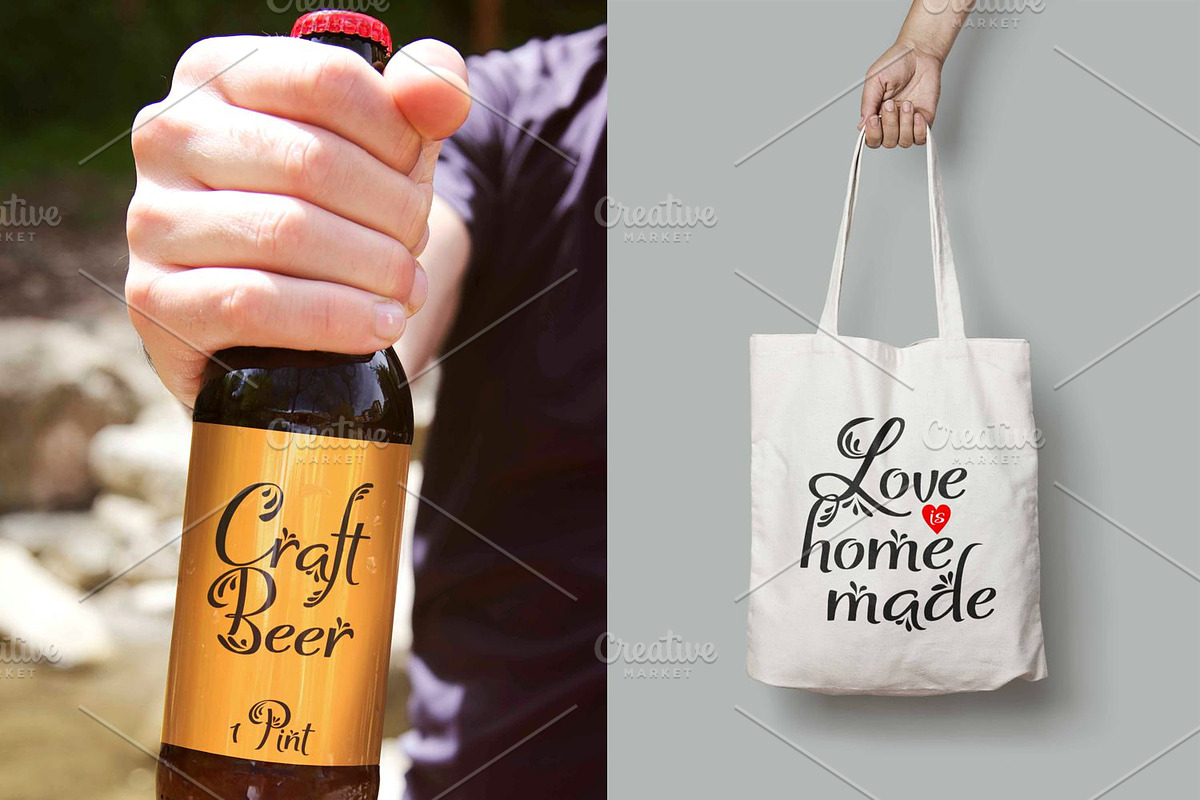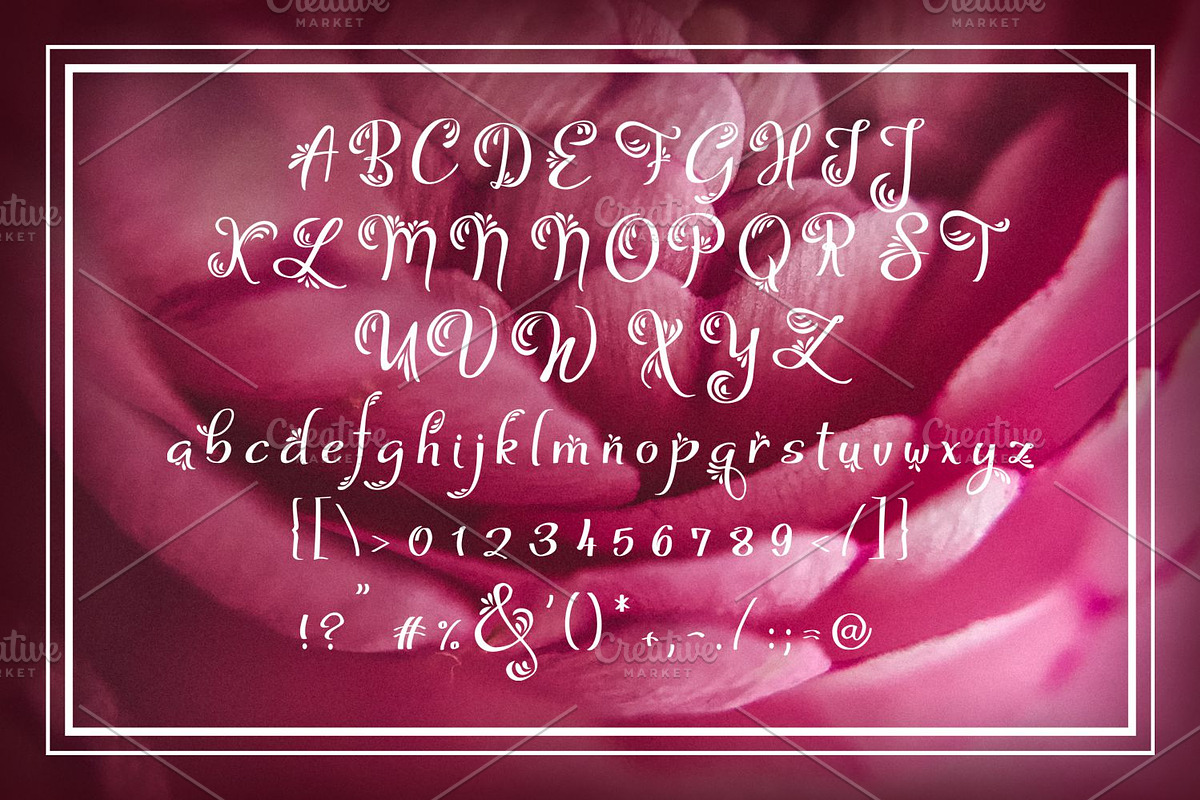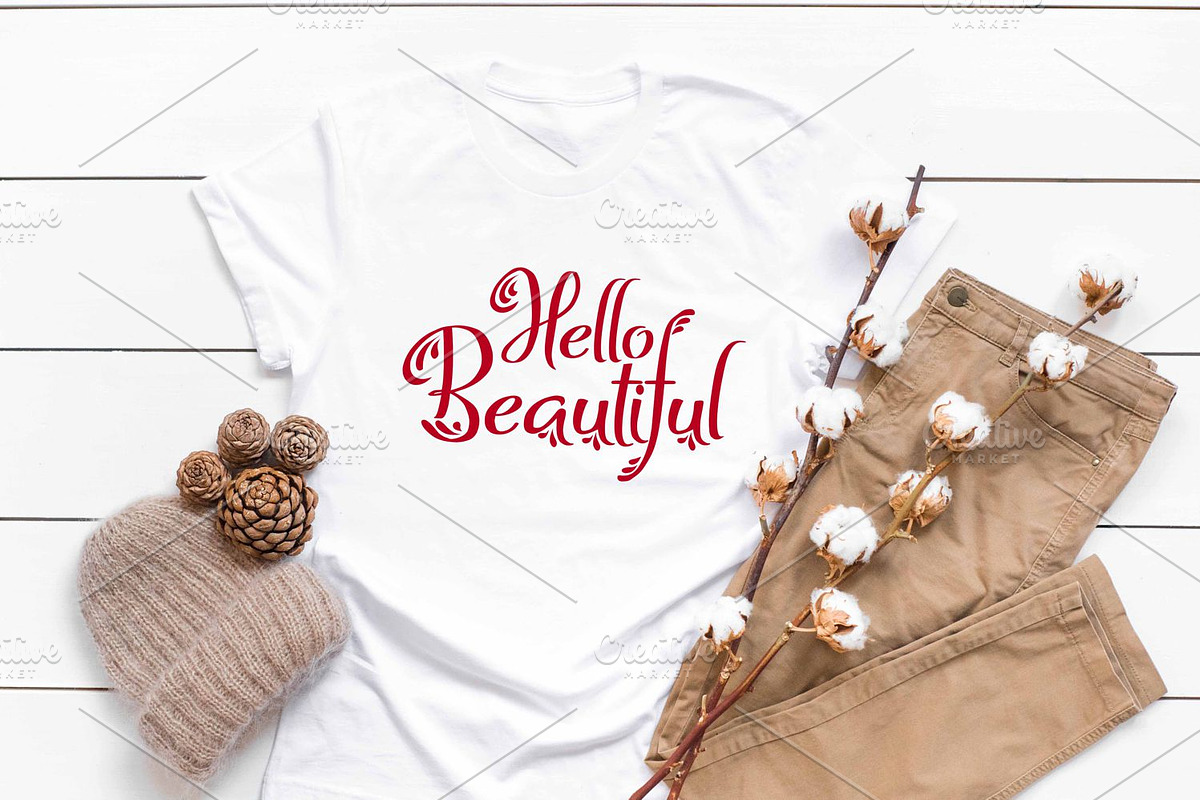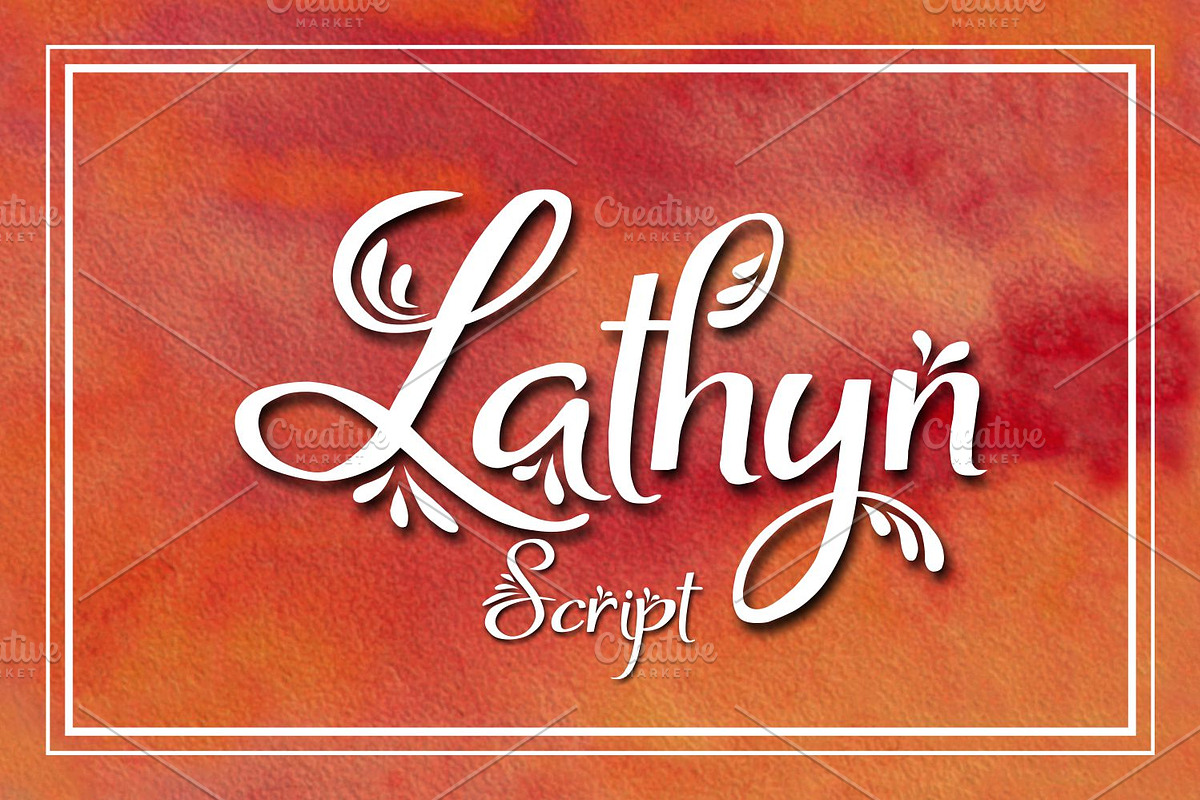
Lathyn
Lathyn is a hand crafted fun font, ideal for use in creative projects.
Why Lathyn is worth a look
Lathyn by Digital Typeface Studio fits naturally into Branding, posters, packaging, typography.